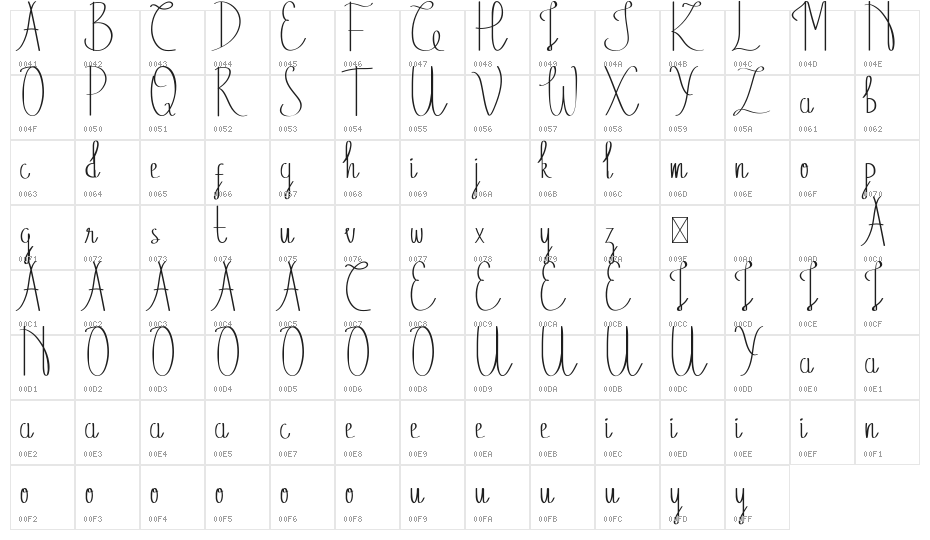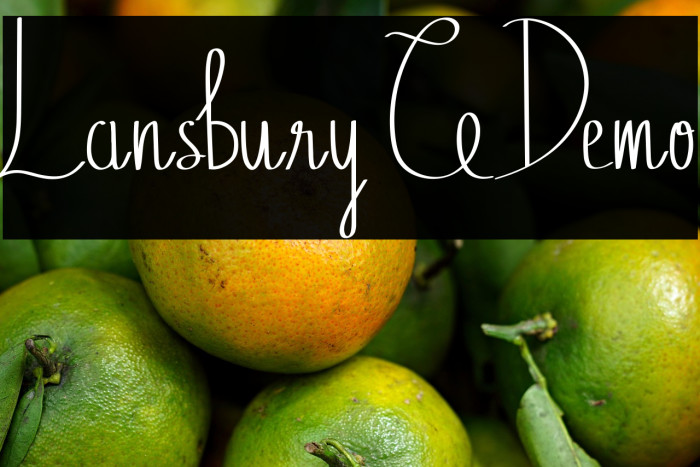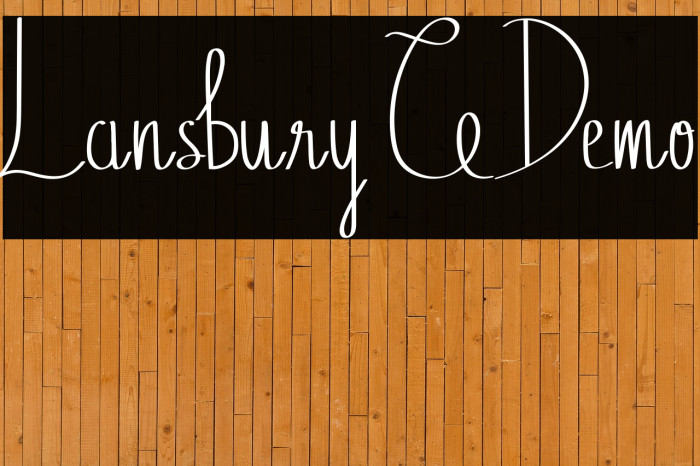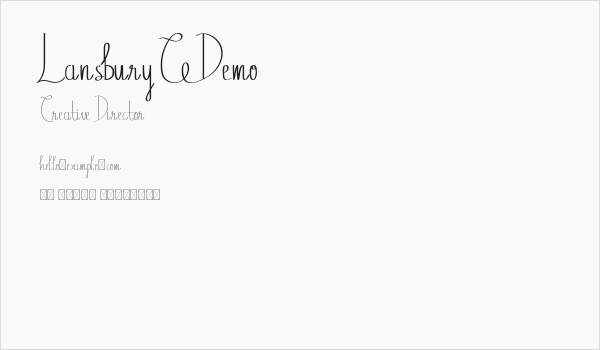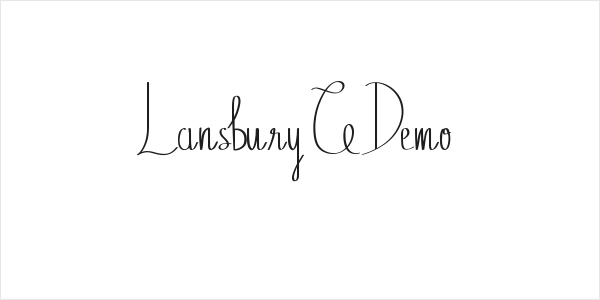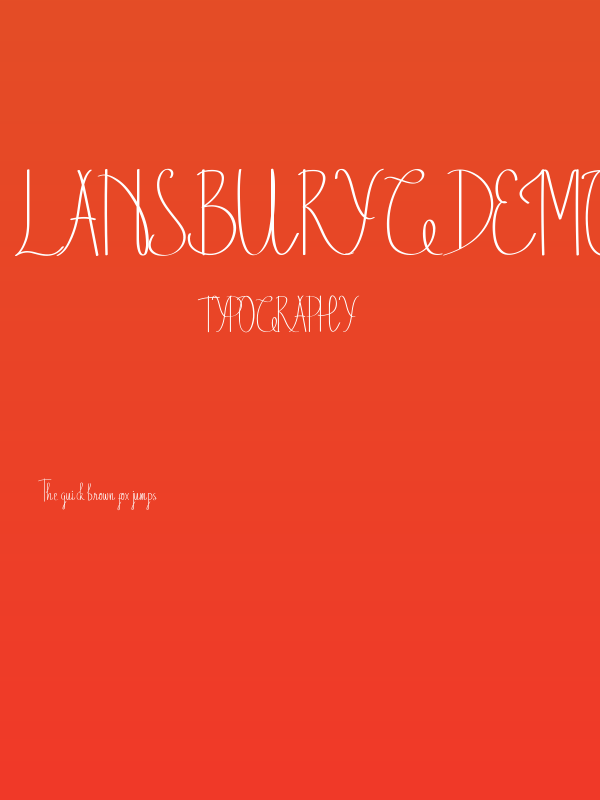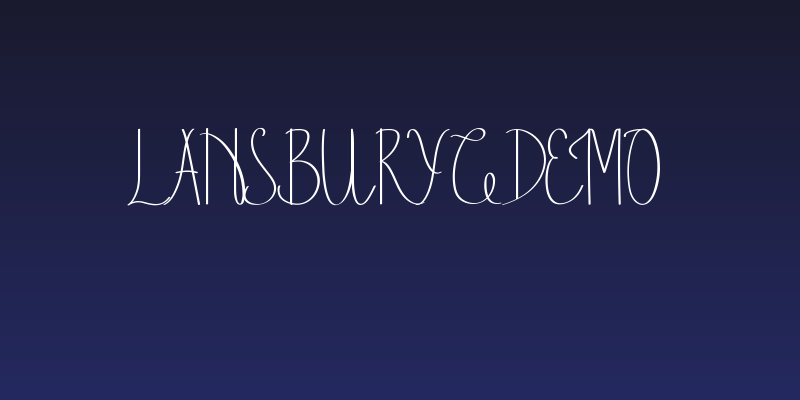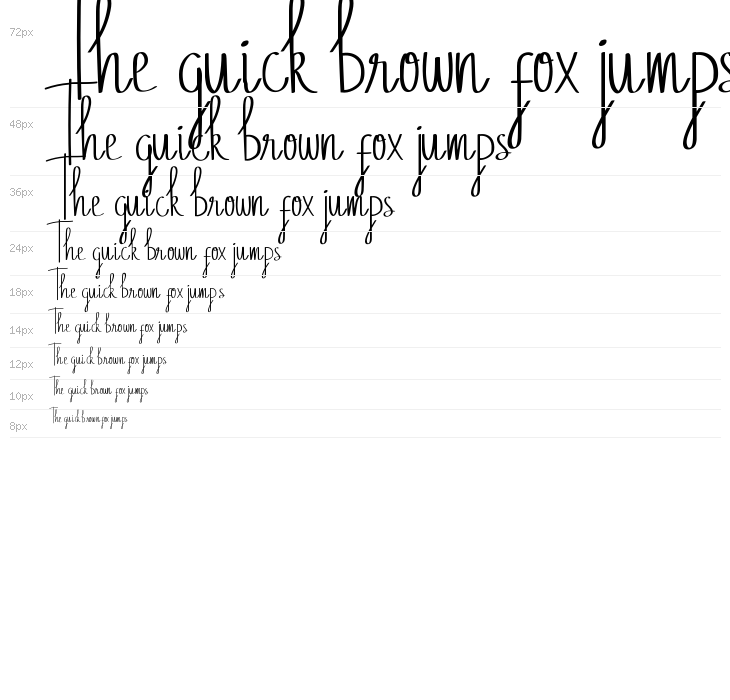
Lansbury G Demo Font
Lansbury G Demo Description
This font features a whimsical and elegant handwritten style, characterized by its tall, narrow letters with a playful, flowing script. The uppercase letters have a unique, artistic flair with extended strokes and loops, while the lowercase letters maintain a consistent, smooth flow. The font's thin lines and delicate curves give it a light and airy feel, making it suitable for creative and decorative purposes. The overall design is both sophisticated and approachable, ideal for adding a personal touch to any project.